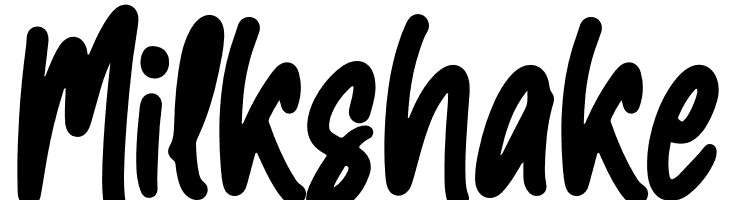
A bold, playful handwritten font with rounded strokes and a lively appearance.
A playful, handwritten-style font with bold, rounded strokes.
A playful, handwritten font with rounded, consistent strokes and a whimsical style.
A bold, playful handwritten font with rounded edges and a whimsical style.
A playful, bold, and handwritten-style font with thick strokes and rounded edges.